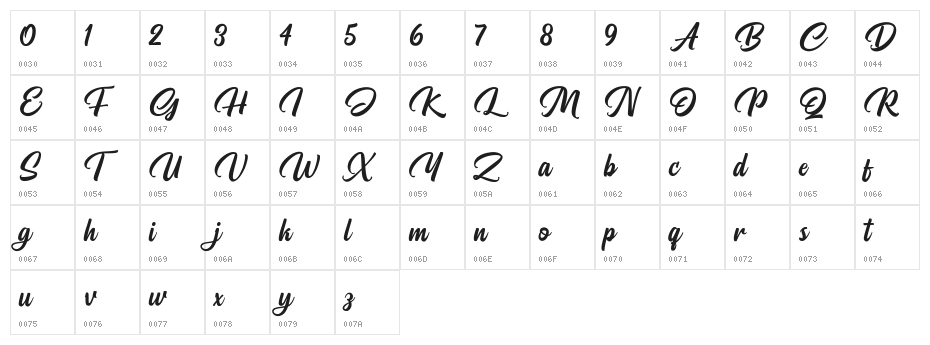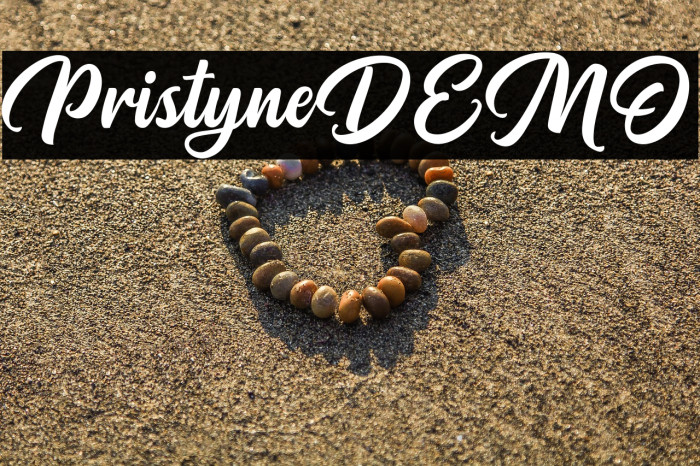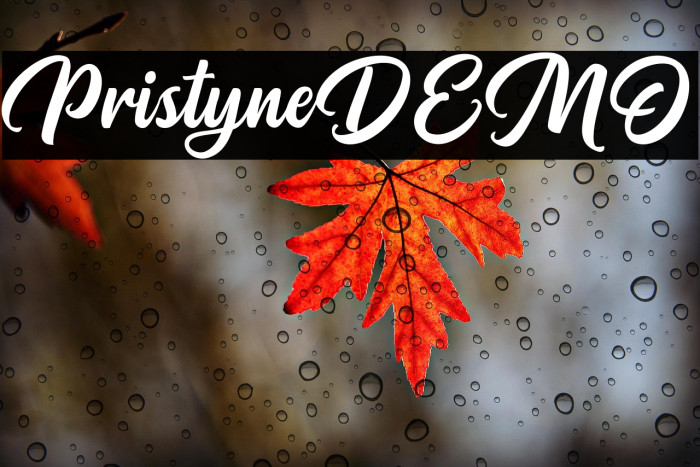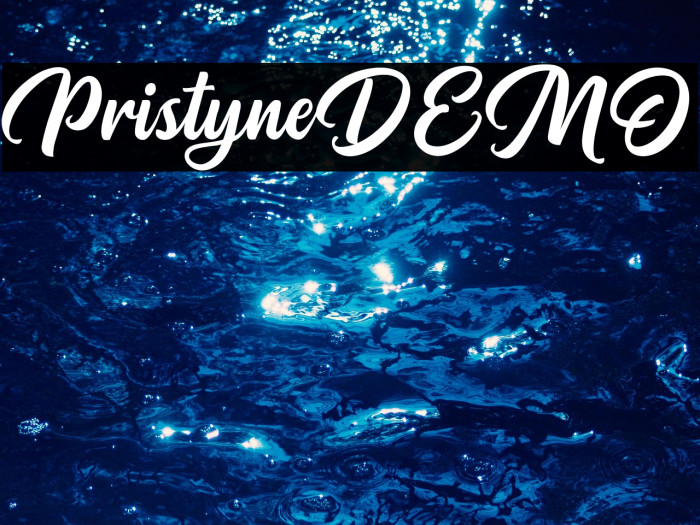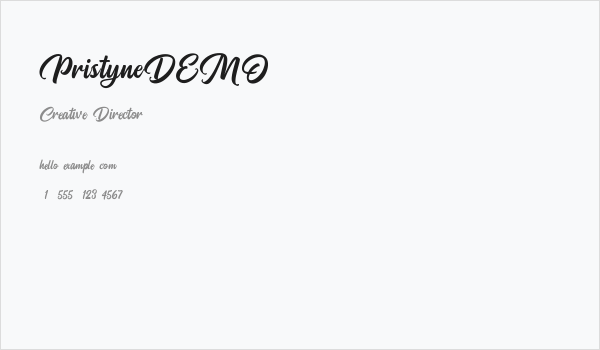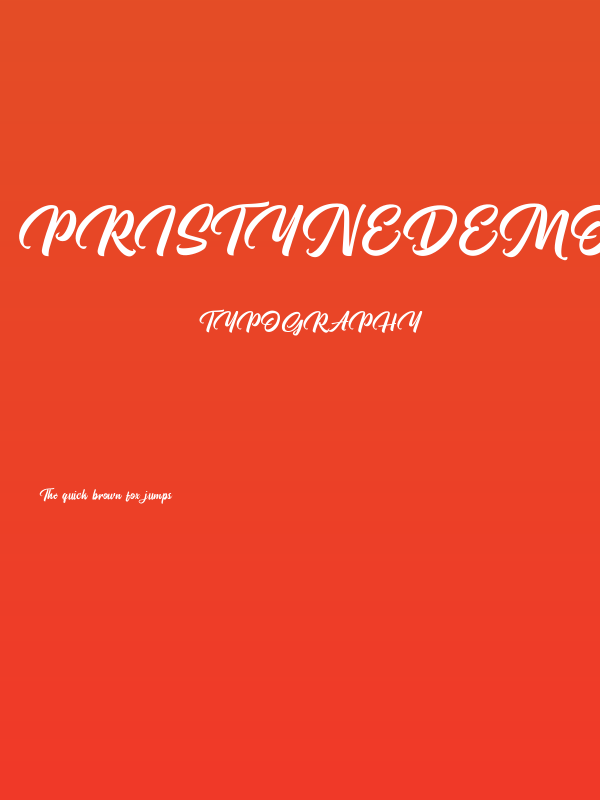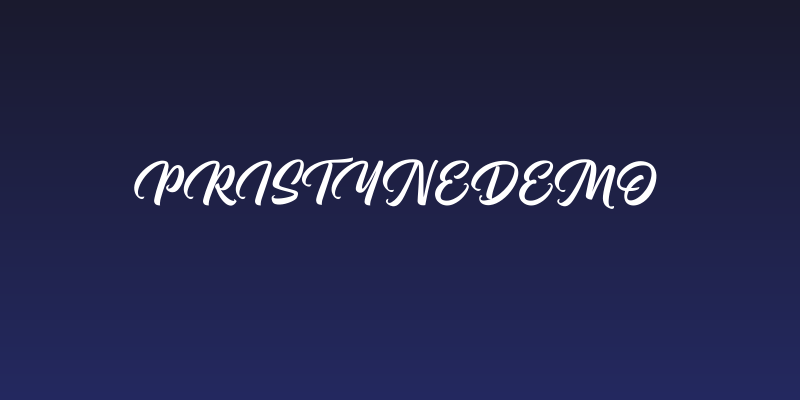
PristyneDEMO Font
PristyneDEMO Description
This font features a dynamic and flowing script style, characterized by its elegant and cursive letterforms. The uppercase letters exhibit a sophisticated flair with smooth, sweeping curves, while the lowercase letters maintain a consistent and harmonious flow. The numerals are bold and clear, complementing the overall aesthetic. The font's design is both stylish and legible, making it suitable for a variety of creative applications. Its unique style adds a touch of elegance and personality, making it ideal for projects that require a distinctive and artistic touch.
| Proposed Projects | Ideal for wedding invitations, branding, greeting cards, and elegant packaging designs. |